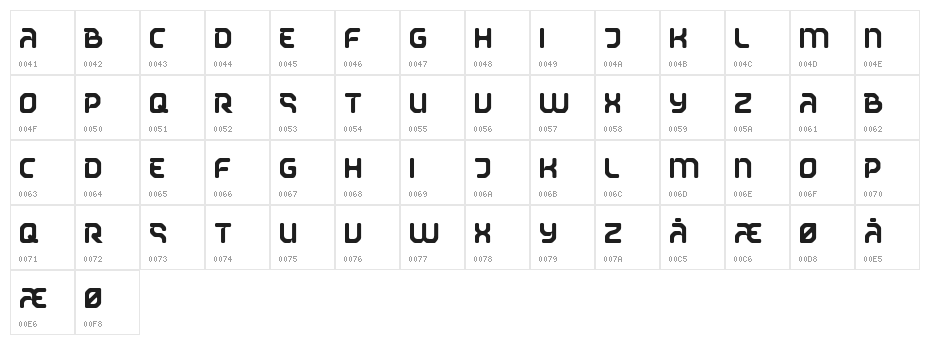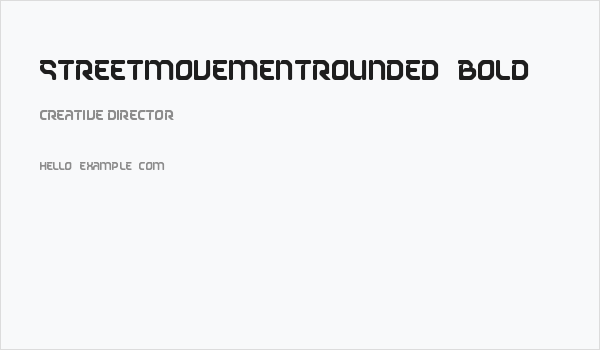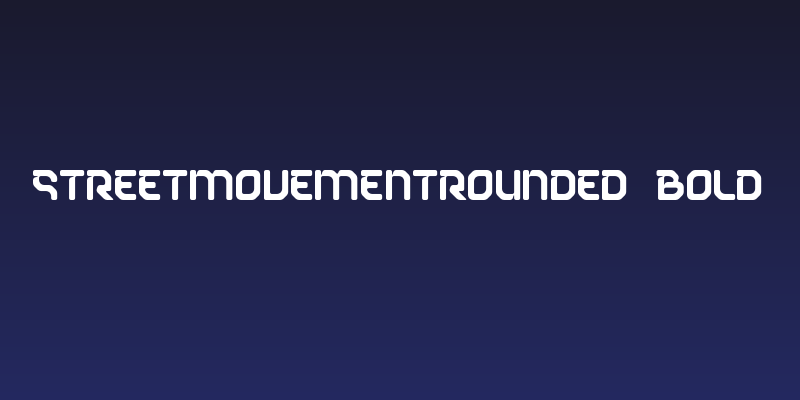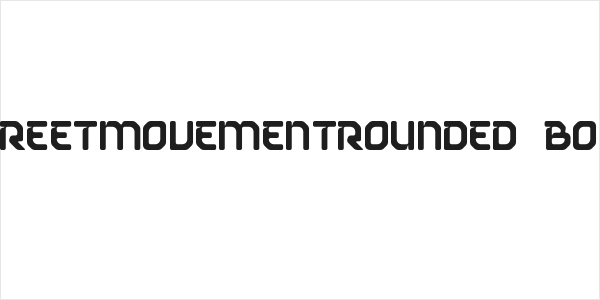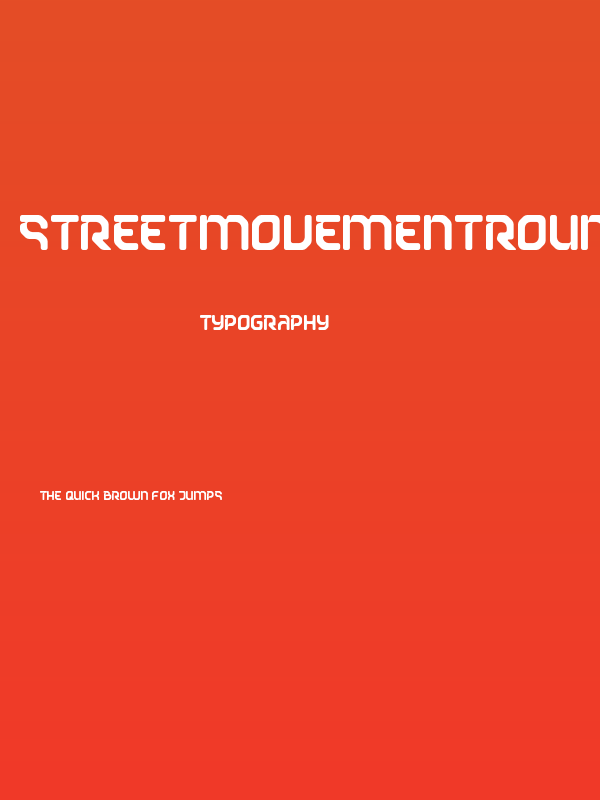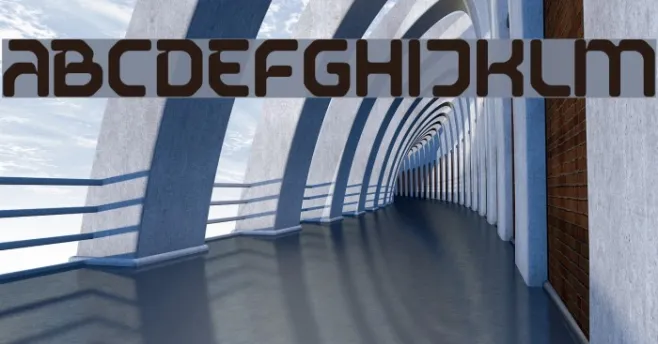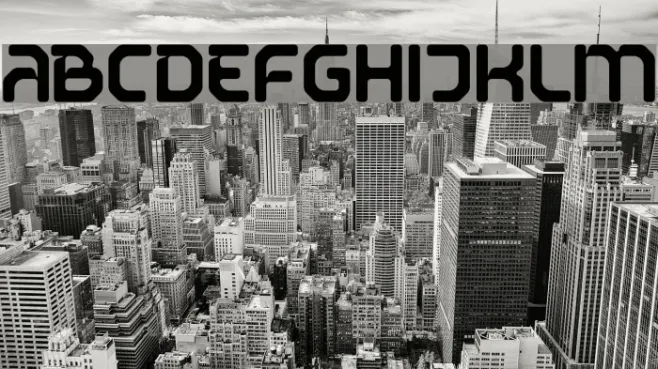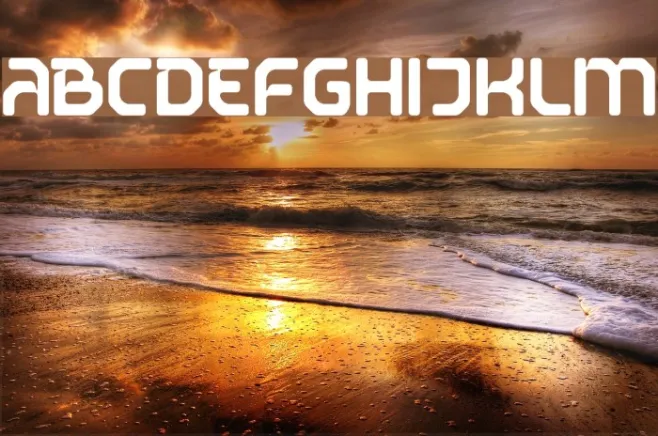
StreetMovementRounded-Bold Font
StreetMovementRounded-Bold Description
This font features a bold, rounded style with a modern and urban aesthetic. The characters are designed with a consistent thickness, giving them a strong and impactful appearance. The rounded edges soften the overall look, making it approachable while maintaining a contemporary feel. The uppercase letters are uniform in height, and the spacing between characters is tight, enhancing the compact and cohesive design. This font is ideal for projects that require a bold statement with a touch of modernity.
| Proposed Projects | Ideal for branding, streetwear designs, posters, and digital media that require a bold and modern look. |